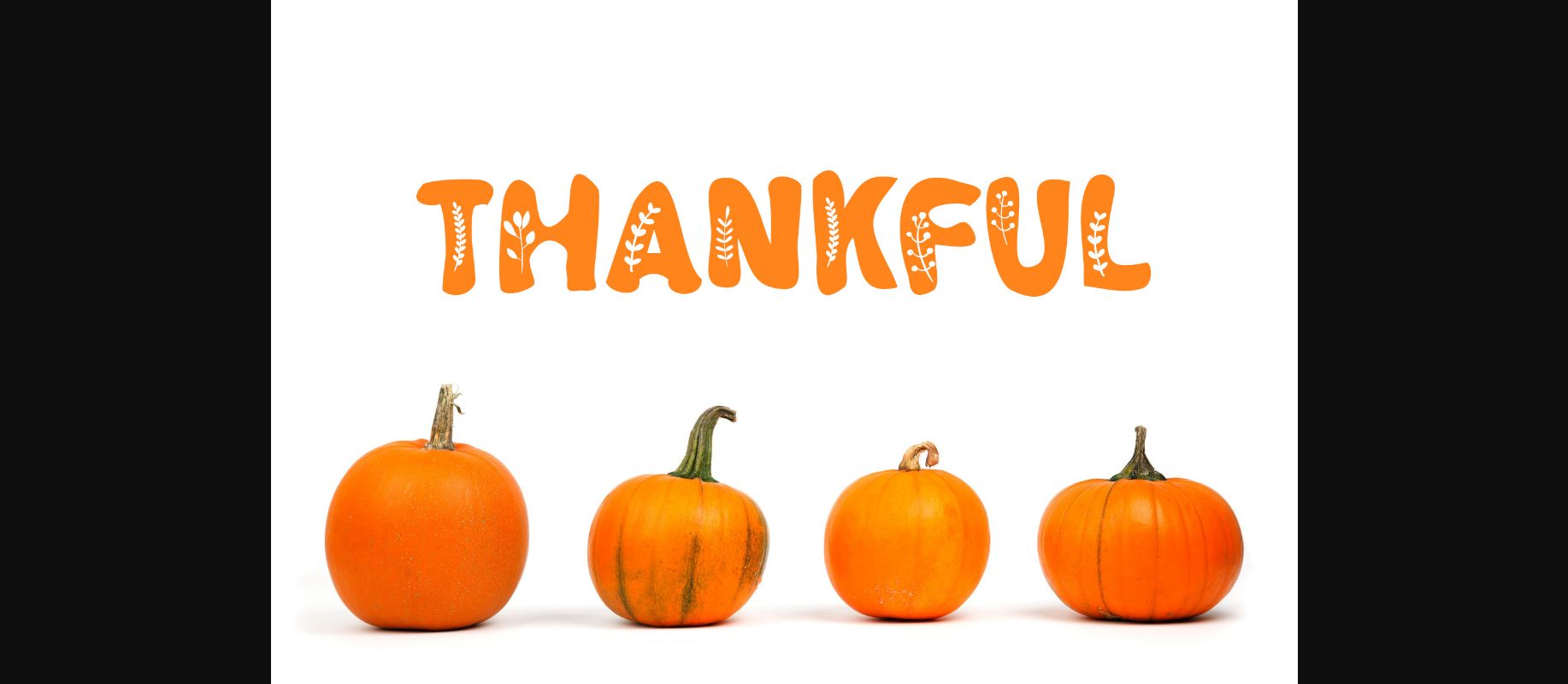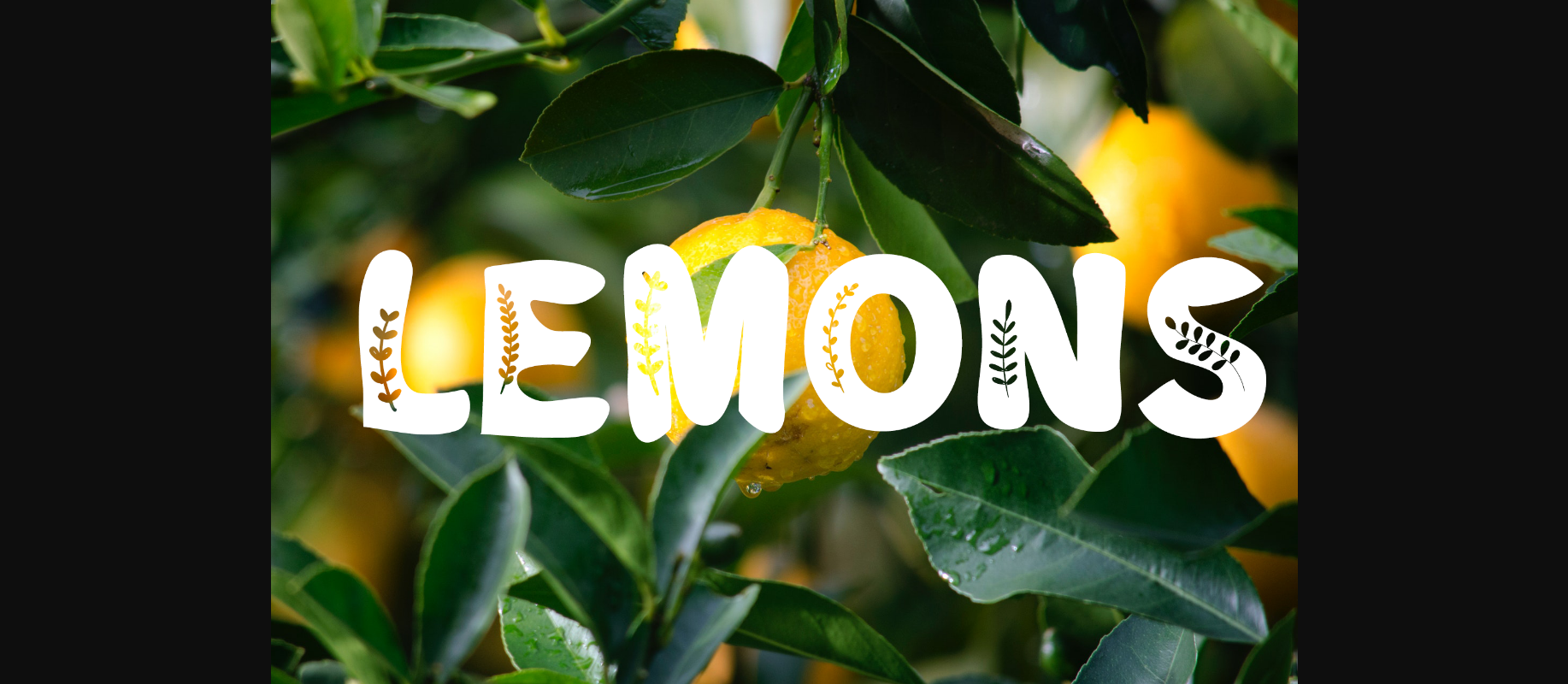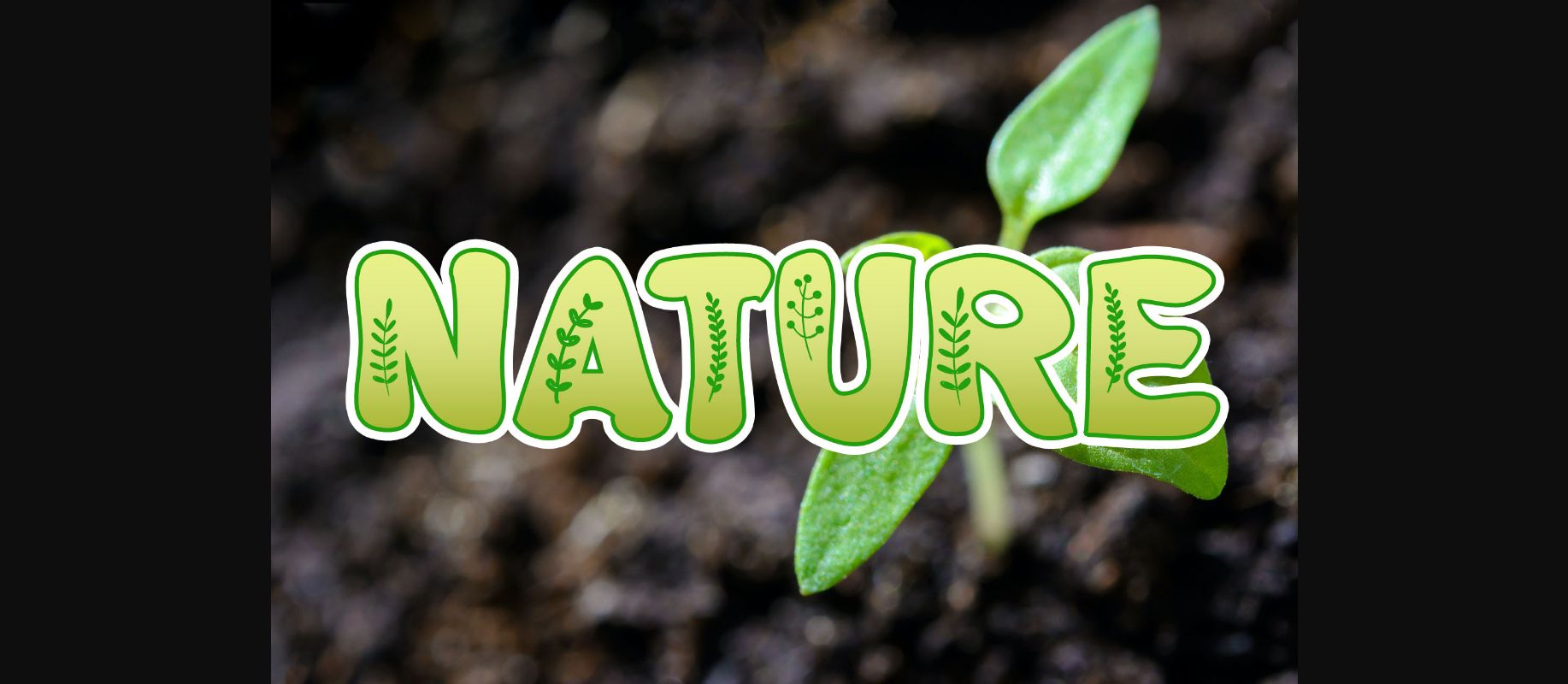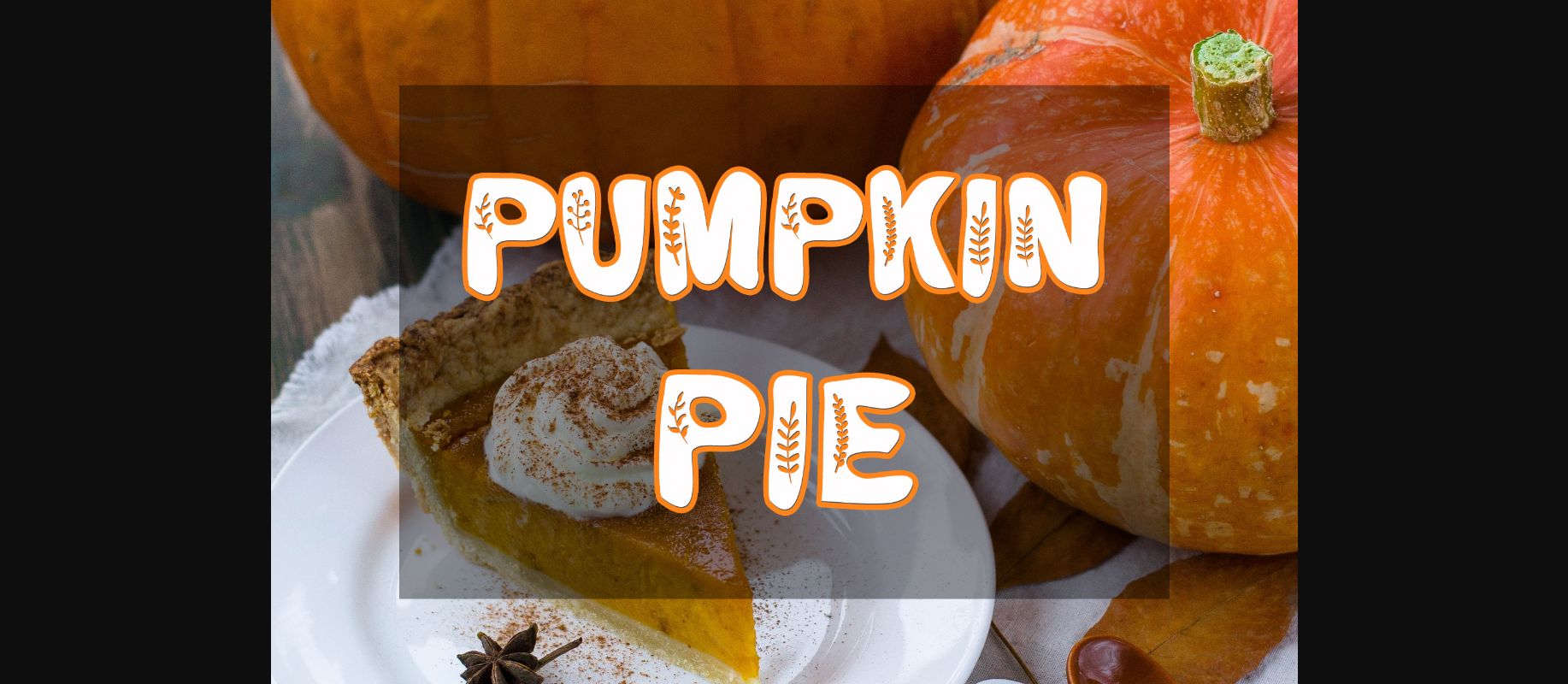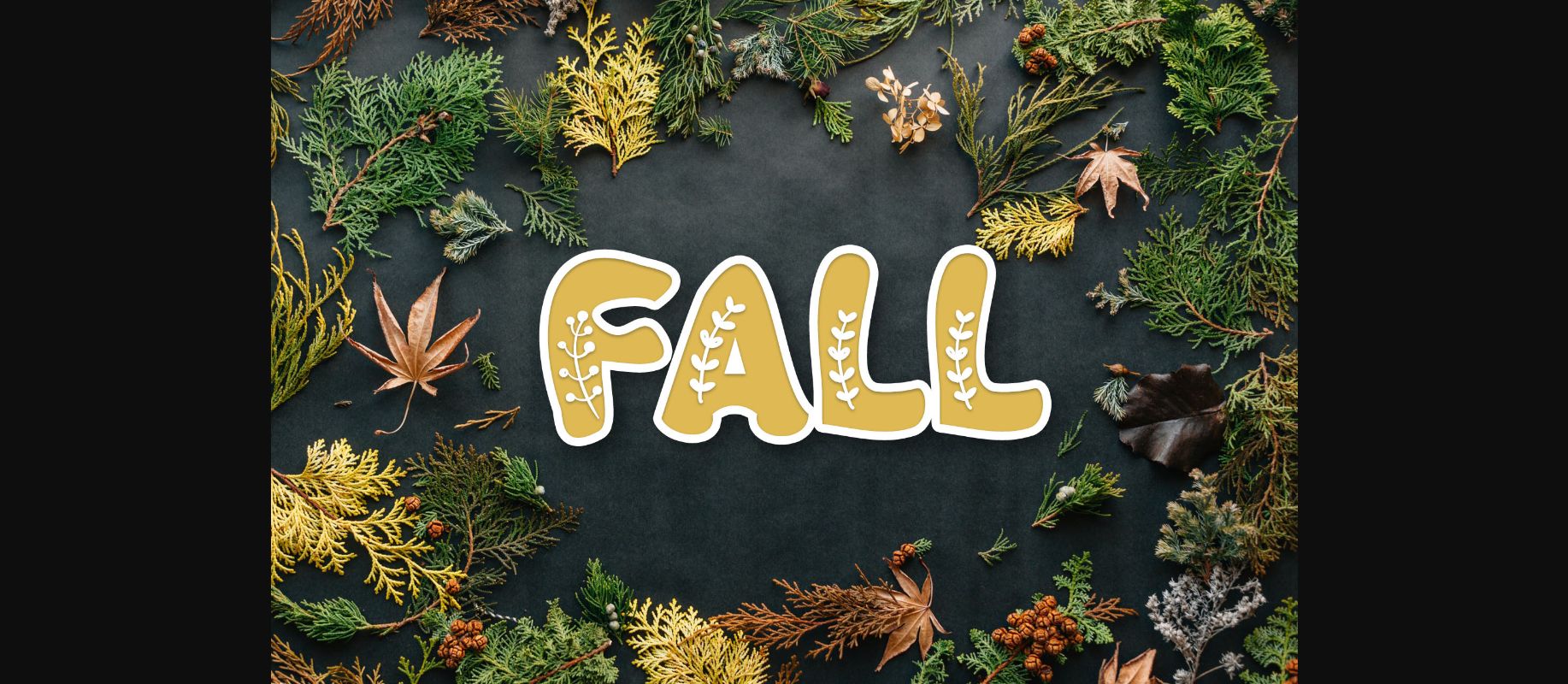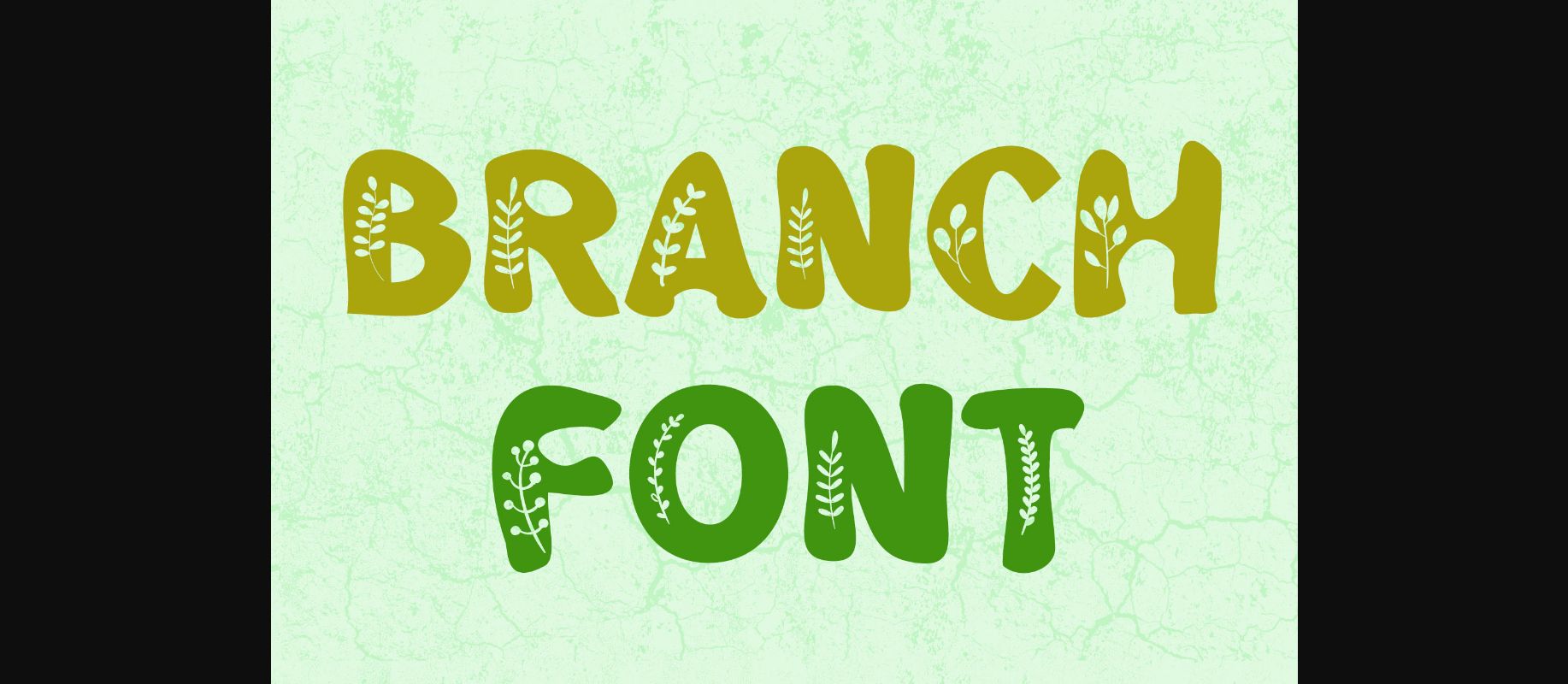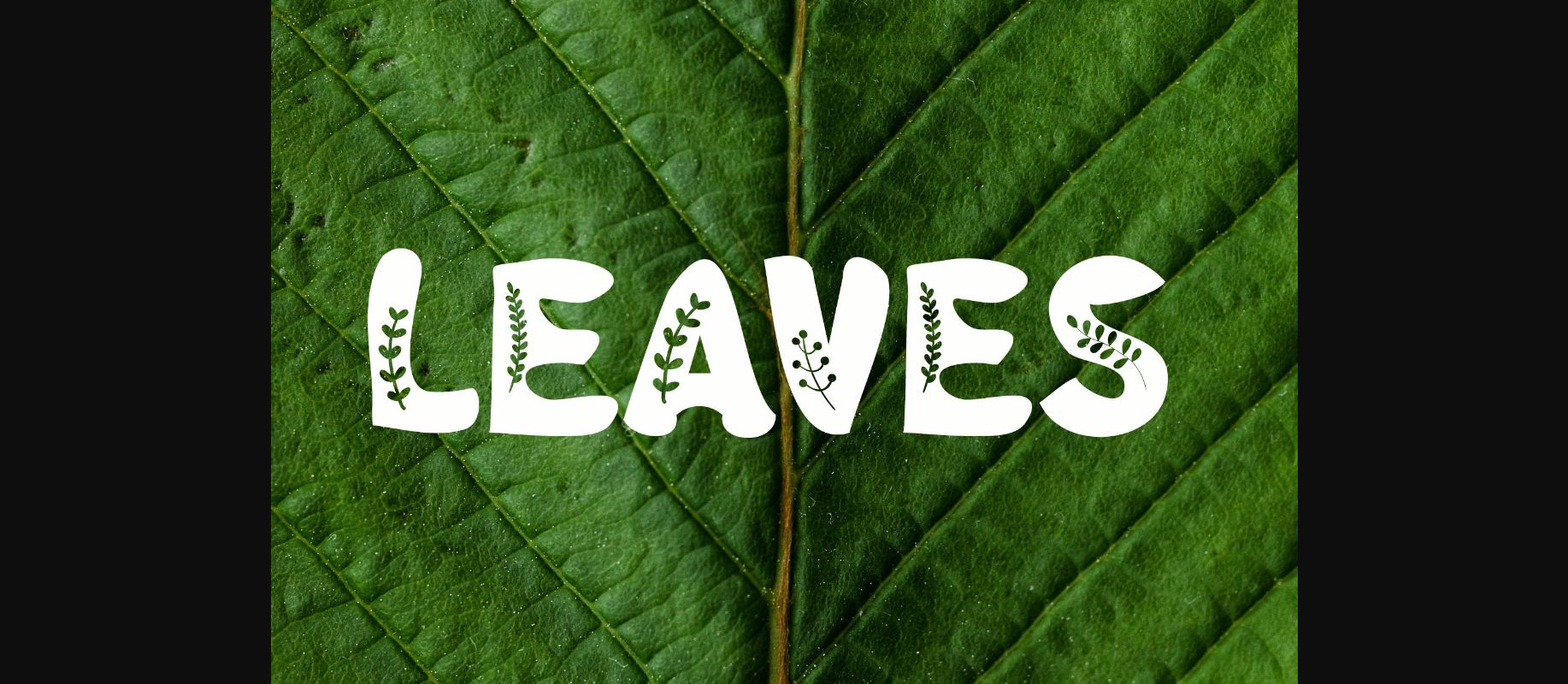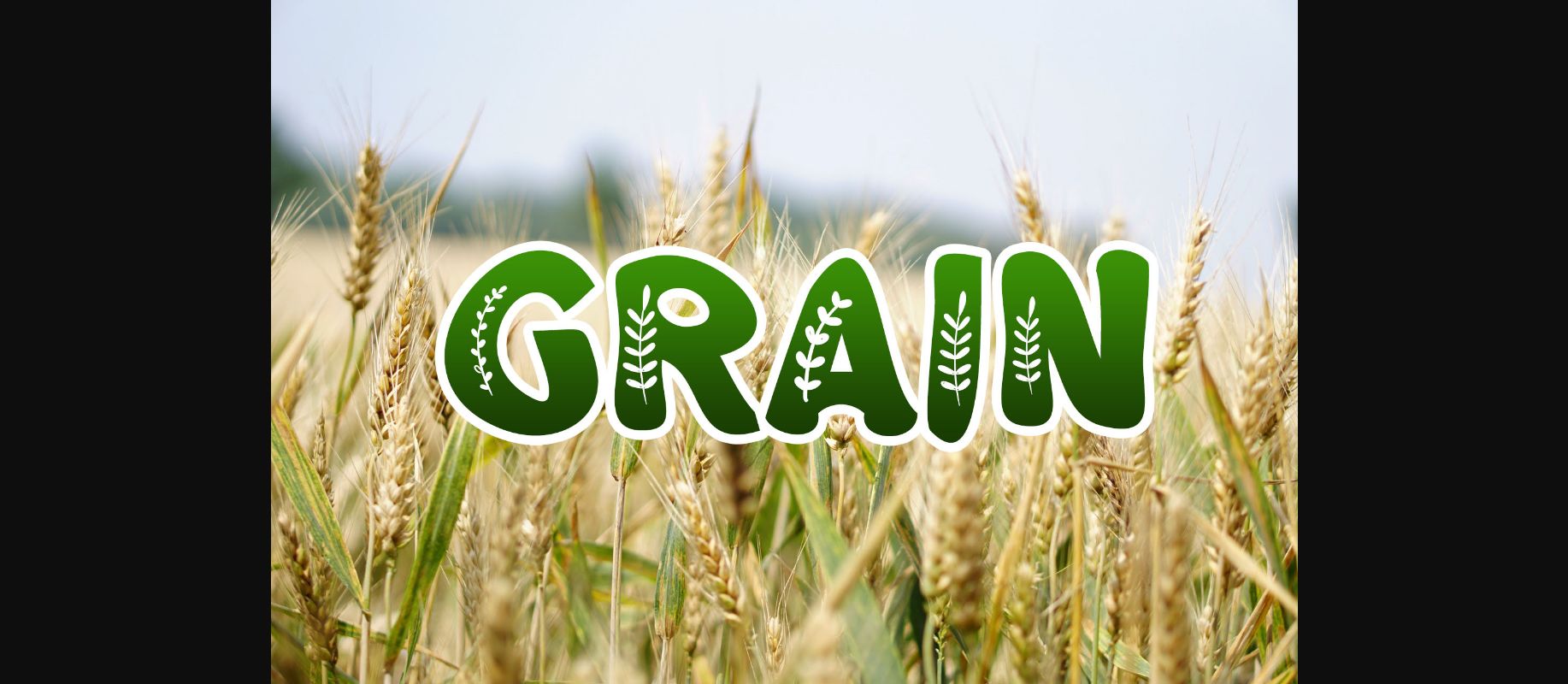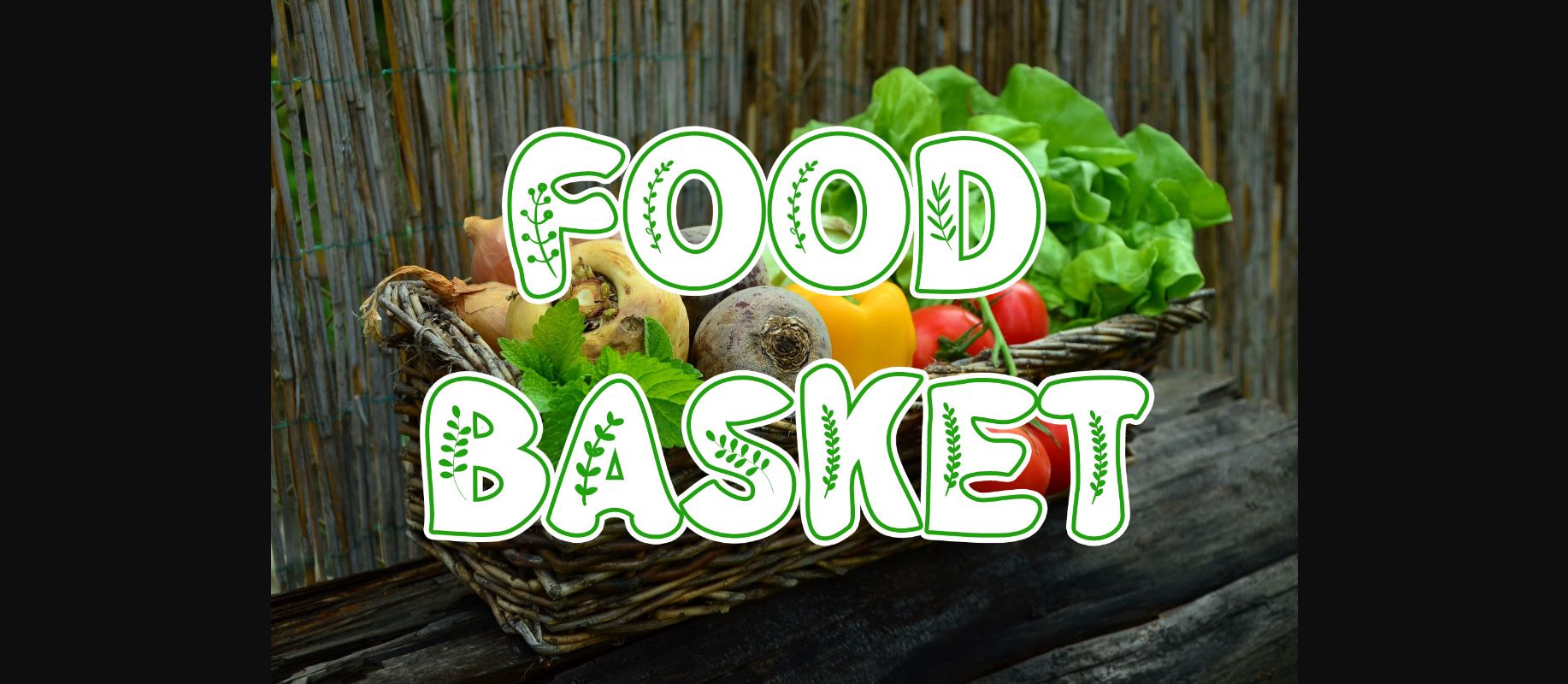
Branch Font
About Branch Font
Branch is a friendly decorative font that contains brunch leaf illustrations. It works great for posters, logos, packaging, wedding invitations, website titles, T-Shirts and more.